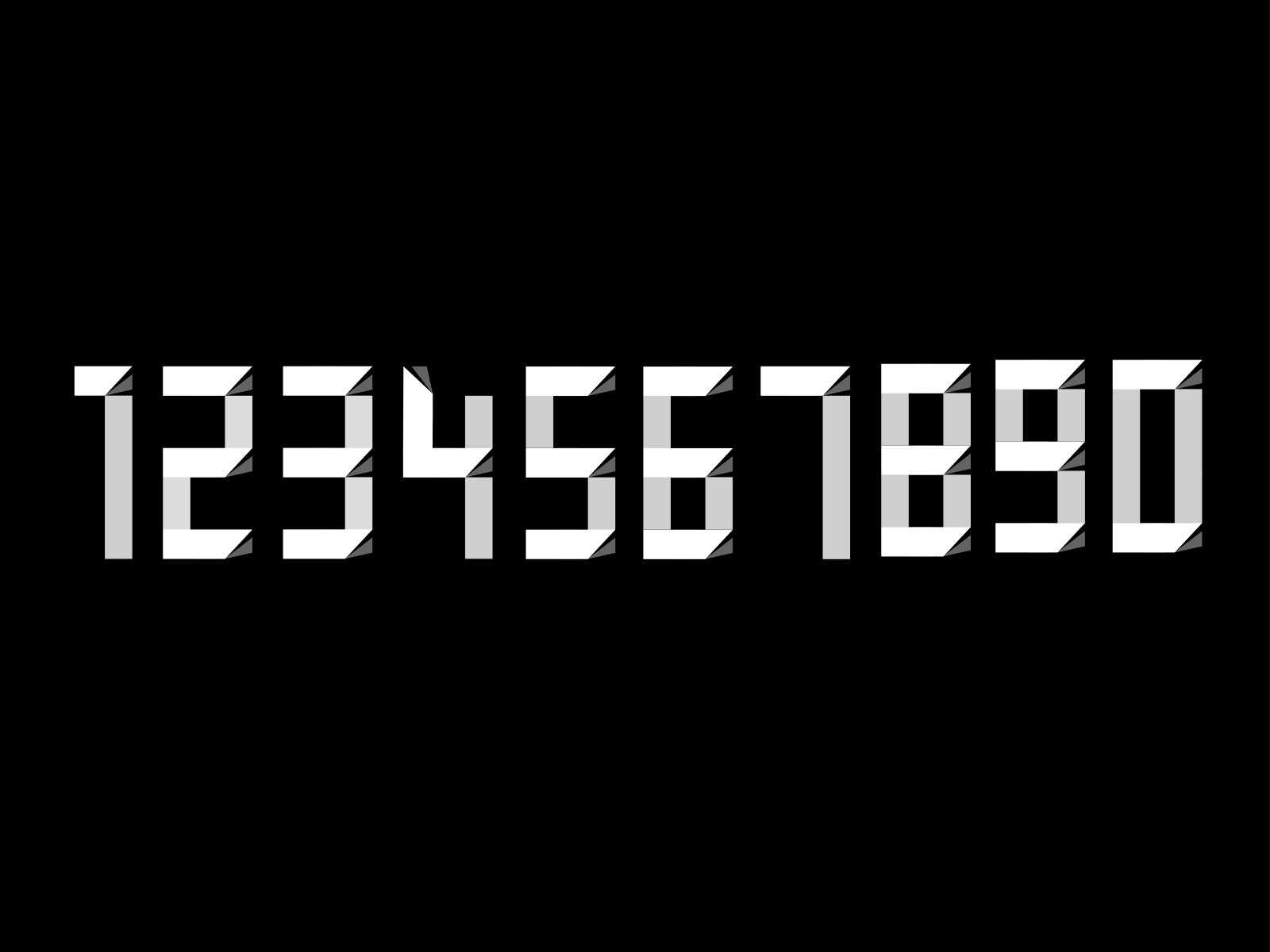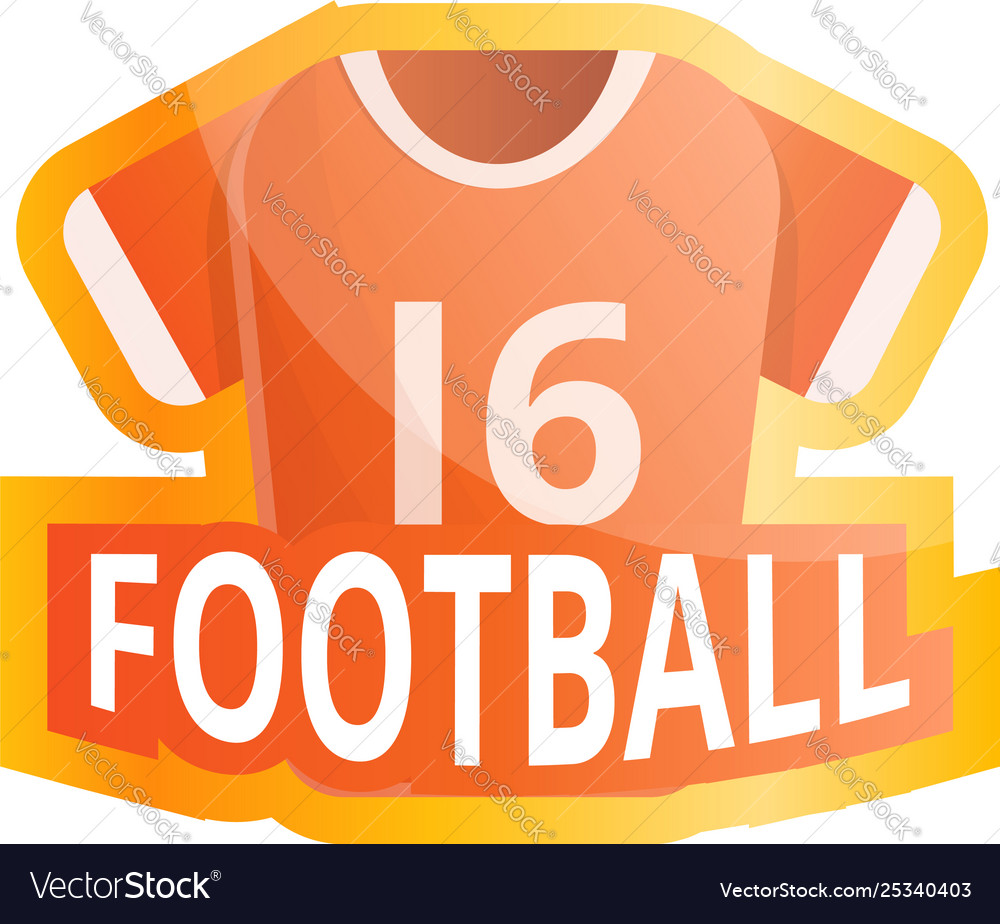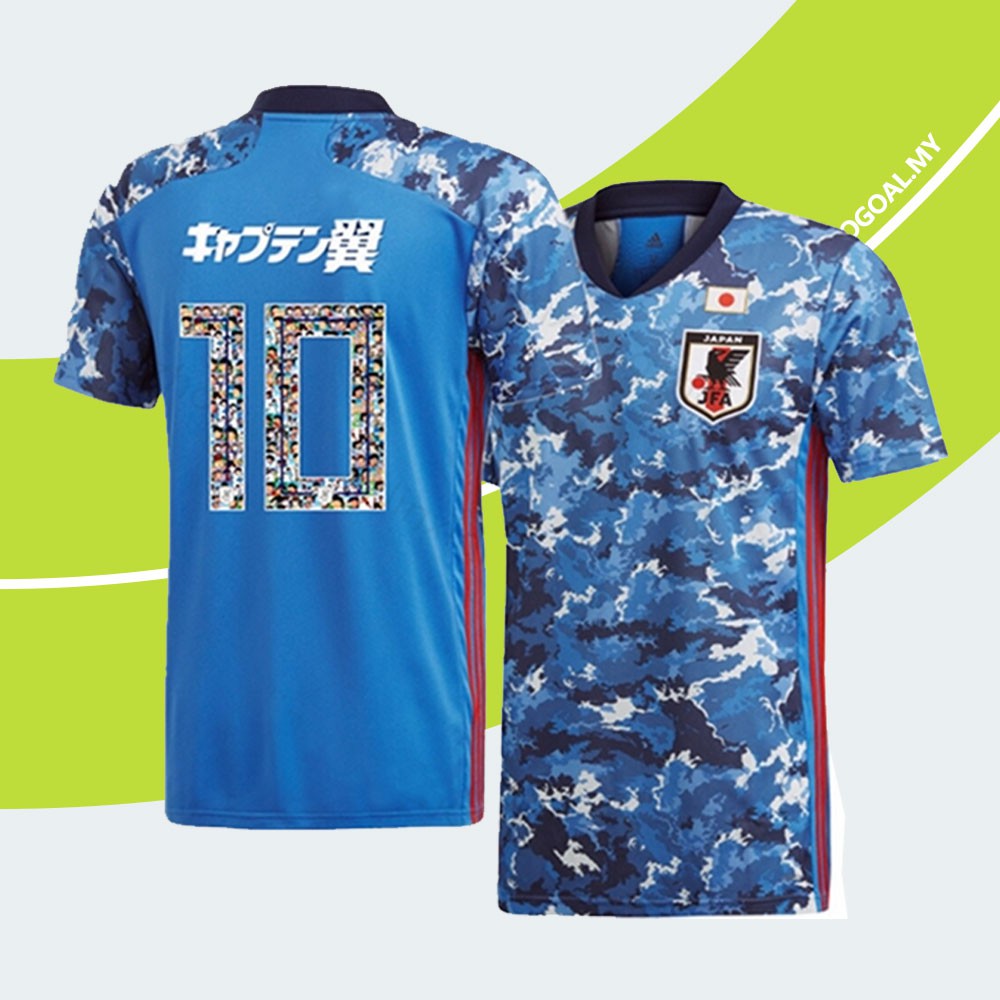
The left and right curly brackets hold alternate glyphs for numbers 2 and 5. Hi another late post from me. Grab this font to create a blast from the past that will help drive your design to the top of the league.
Here is a great selection free of american football fonts to help you make your own custom football jerseys. Available in more than 10 different languages the font has a style that appeals well to sporting ads social media and potentially a classic refined touch on jersey lettering. Ideal for apparel design and naming sports jerseys.
Custom football jersey font. We have free athletic numbers and letters so you can make your own free sports jersey. Size sports jersey by arfurware.